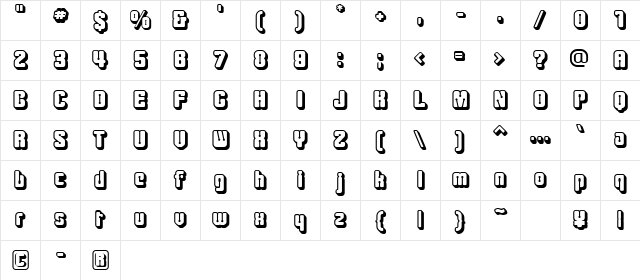
Clipe Shadow
| Style | Shadow |
Design Context for Clipe Typeface
Clipe is built around its visual character rather than neutral utility — its distinctive forms are designed to make an impression at display sizes.
Font Pairing: Pair with a clean neutral sans-serif for body copy to let Clipe's character lead without overwhelming the composition.
Pro Tip: Treat Clipe as the centrepiece of your typographic hierarchy. One strong heading set in a decorative face can carry an entire layout.